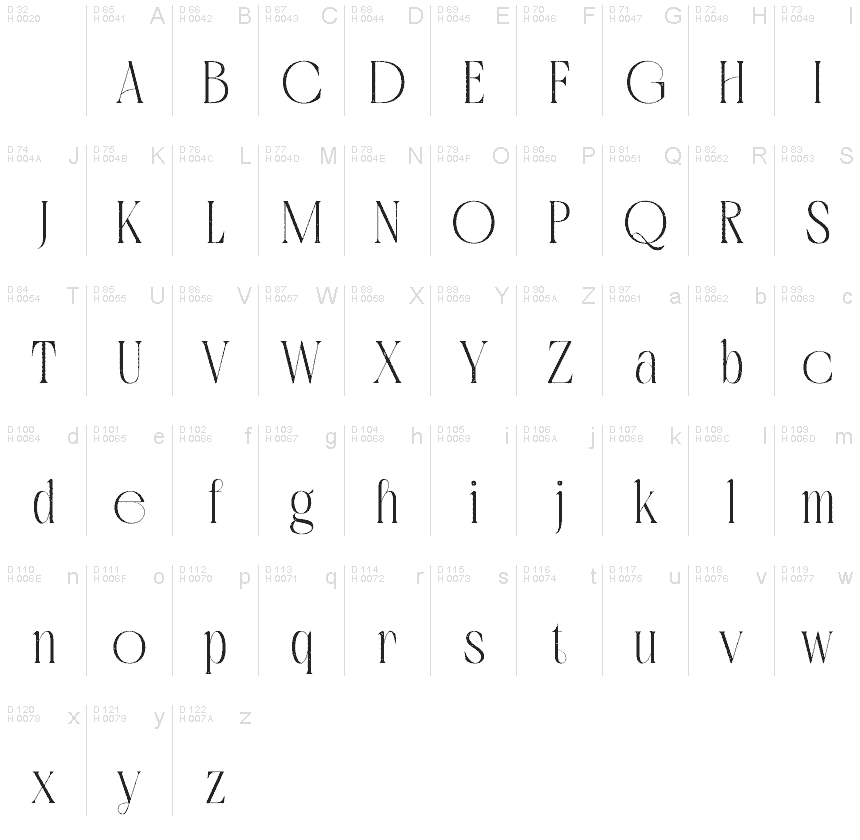
Golften Vintage Demo Stamp
Golften Vintage Stamp font by Craft Supply Co is a free display font to elevate your typography. The artistic letters have a distinctive flair for them, giving impressions of charm, elegance, and sophistication. This unique style can be best described as retro-inspired with various vintage touches including texture and condensed type.